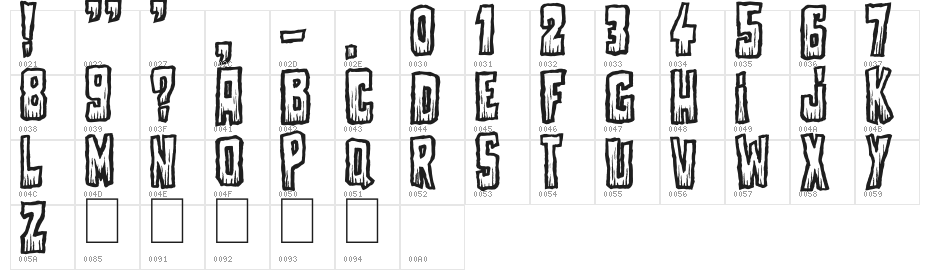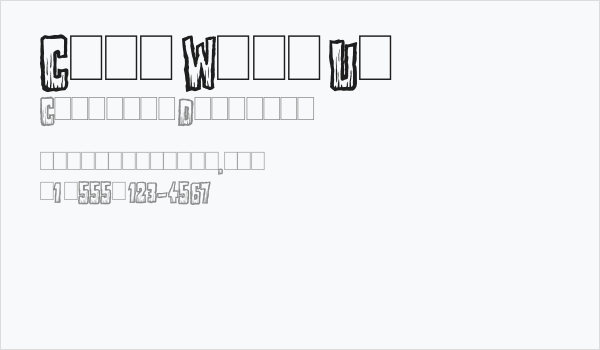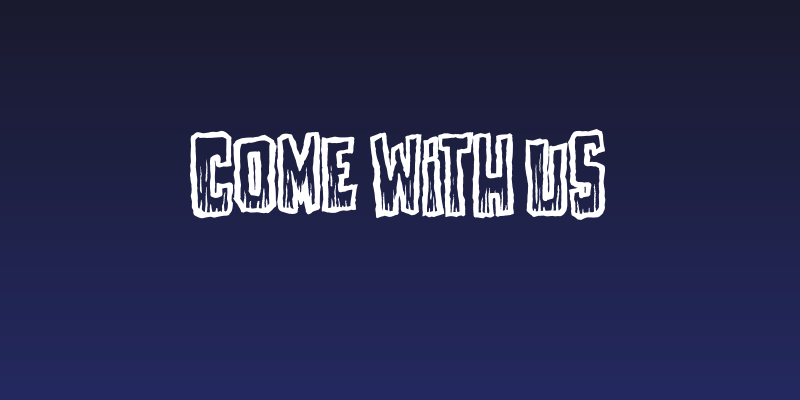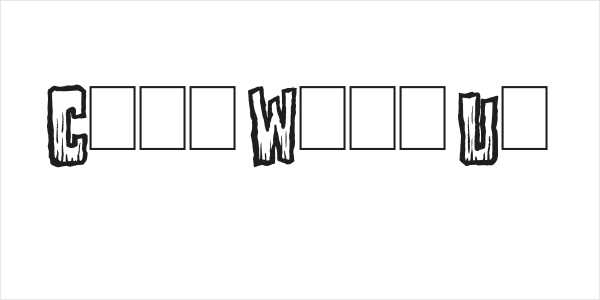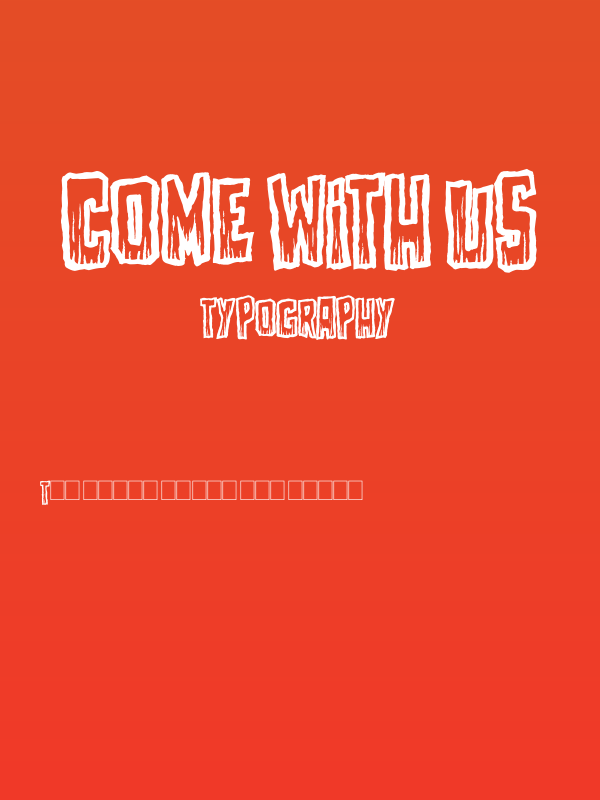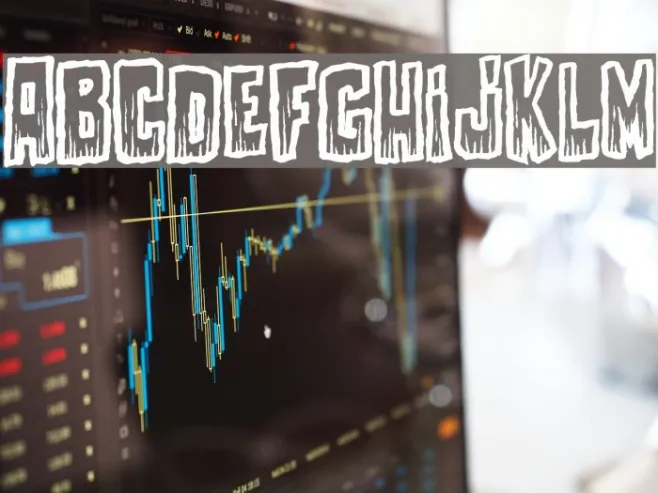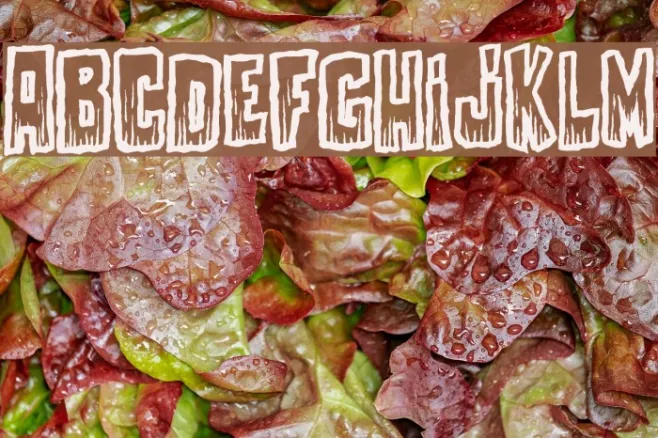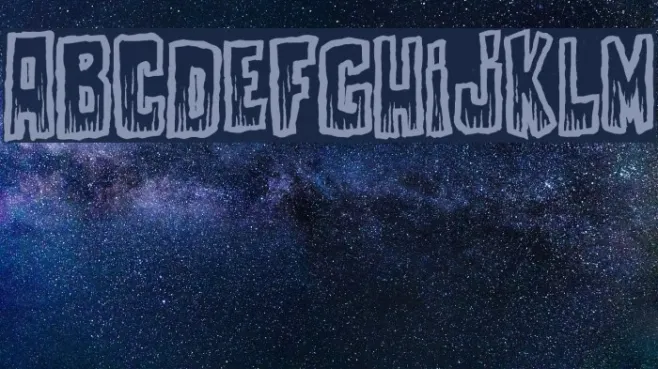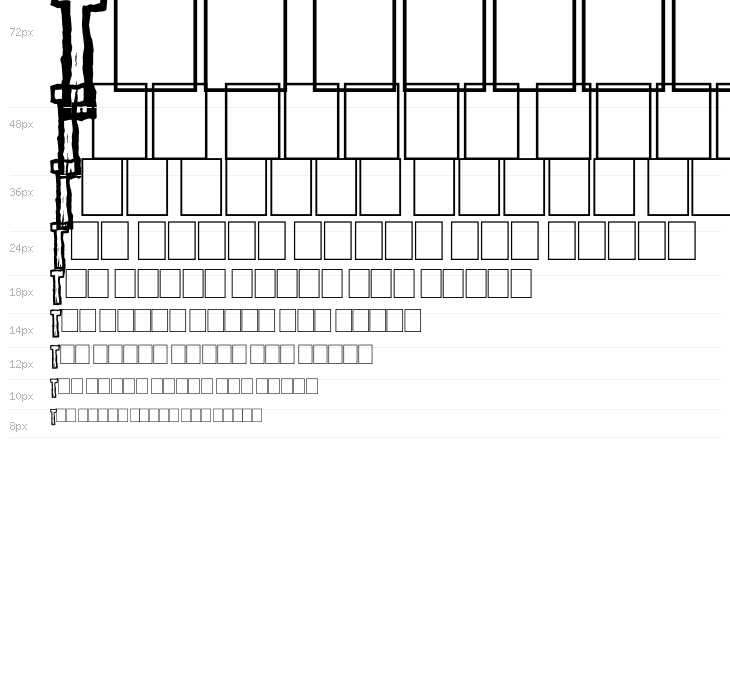
Come With Us Font
Come With Us Description
This font features a bold and rugged design with a distressed, hand-drawn appearance. The characters have a rough, textured edge that gives them a dynamic and energetic feel. The uppercase and lowercase letters maintain a consistent style, with exaggerated strokes and uneven lines that create a sense of movement. Numbers and special characters follow the same aesthetic, ensuring a cohesive look across all glyphs. The font's unique style makes it stand out, perfect for projects that require a bold and eye-catching typeface.
| Proposed Projects | Ideal for posters, album covers, video game graphics, and any project needing a bold, dynamic typeface. |